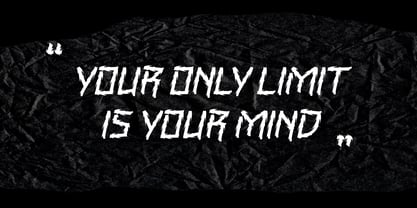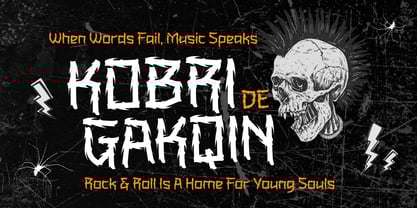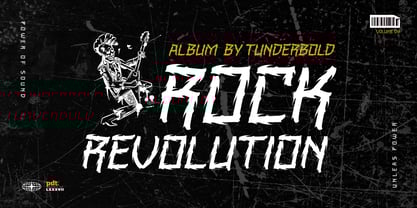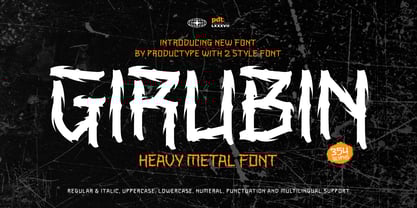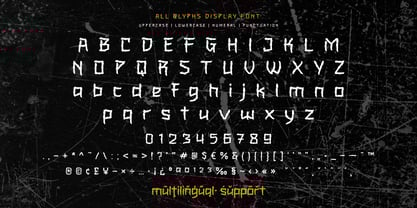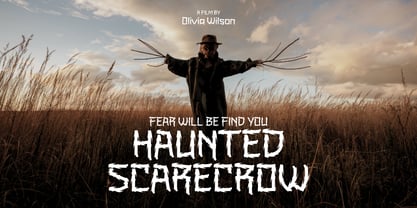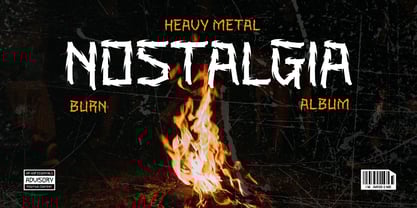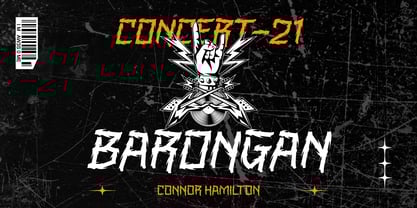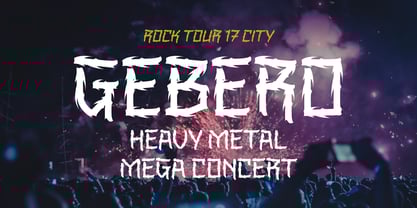
Girubin
The Girubin Font Family was designed by Lita Faolina and published by Product Type. Girubin contains 2 styles and family package options. More about this family
Girubin is a fierce and chaotic black metal display font designed for those who want their designs to scream intensity. With jagged edges, sharp terminals, and aggressive letterforms, Girubin channels the raw energy of underground metal culture into every glyph. It’s the perfect choice for band logos, album covers, horror movie titles, extreme event posters, or any creative project that needs a dark, rebellious soul.
Crafted with a hand-drawn, distressed feel, Girubin captures the essence of brutality and darkness while still maintaining legibility. Make your statement loud, brutal, and unapologetically bold with Girubin.